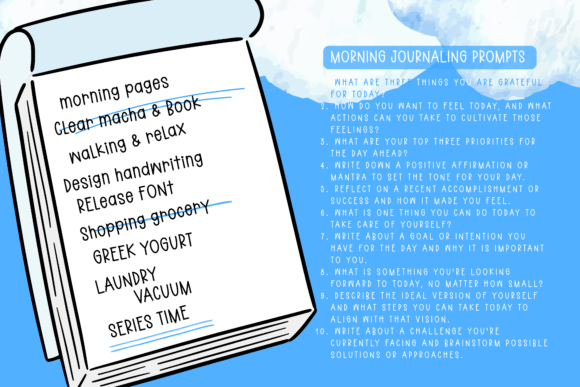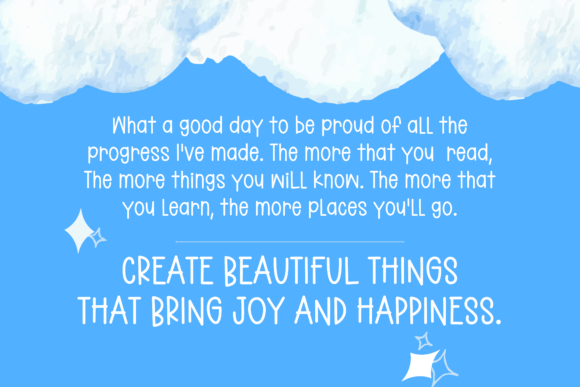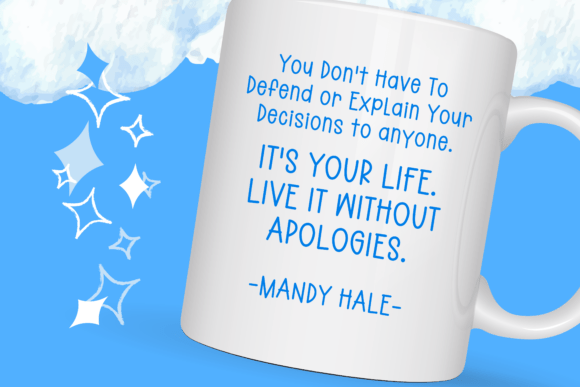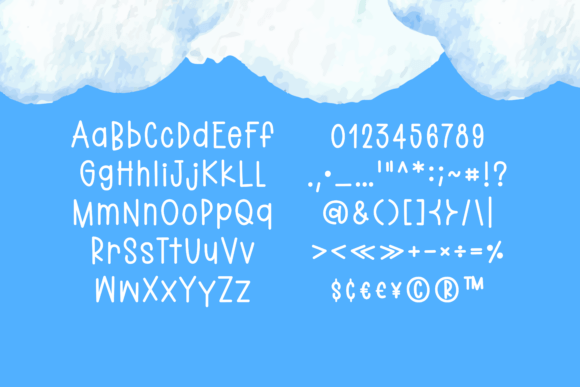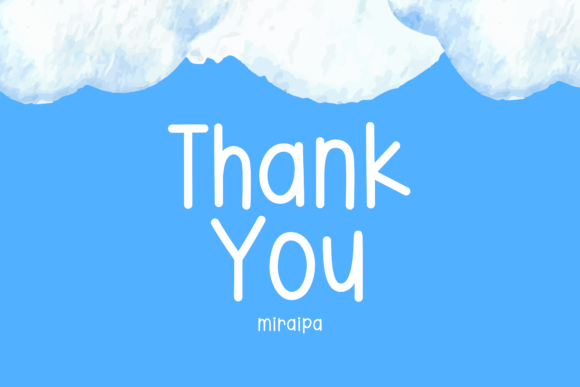
Introduction to Morning Friday Font
Morning Friday is a friendly, handwritten sans serif font with a cheerful, casual vibe, perfect for creating an authentic and approachable typography style.
This charming typeface features rounded, slightly uneven glyphs and a clean, legible structure that mimics natural, fluid handwriting, making it incredibly versatile and easy to read As a simple sans serif font, it excels in projects needing a warm, human touch, such as childrenโ€™s materials, greeting cards, social media graphics, personal branding, and informal web design.